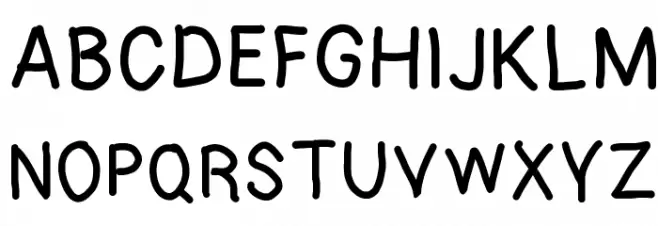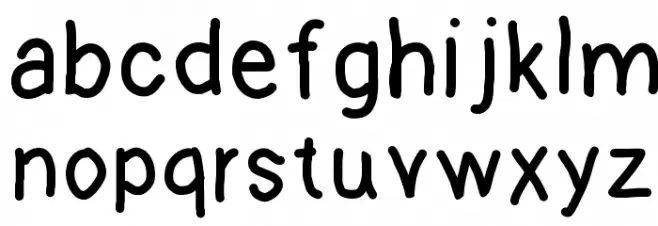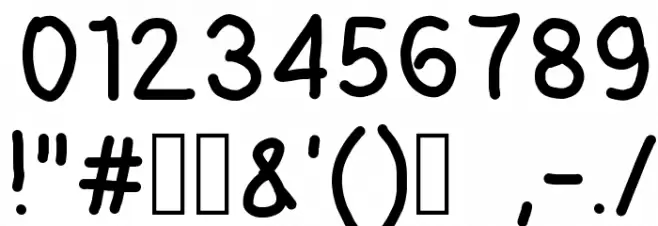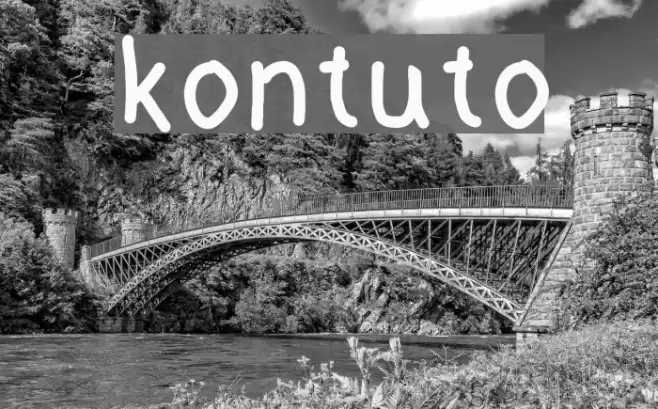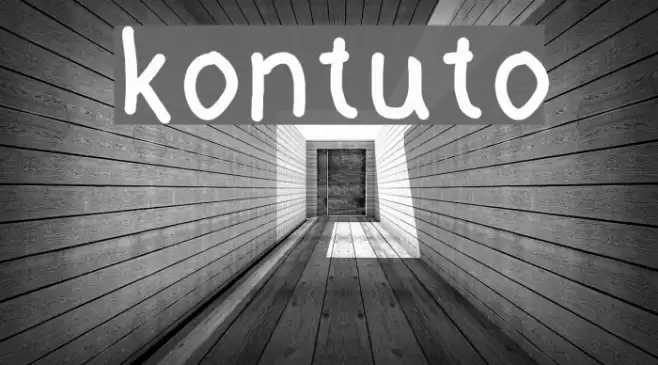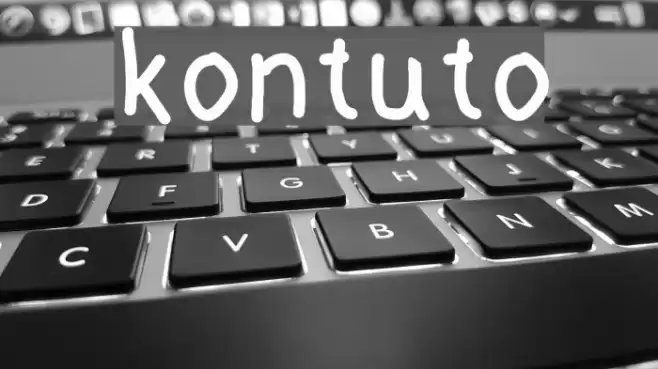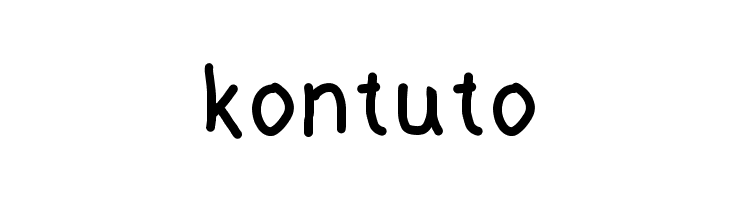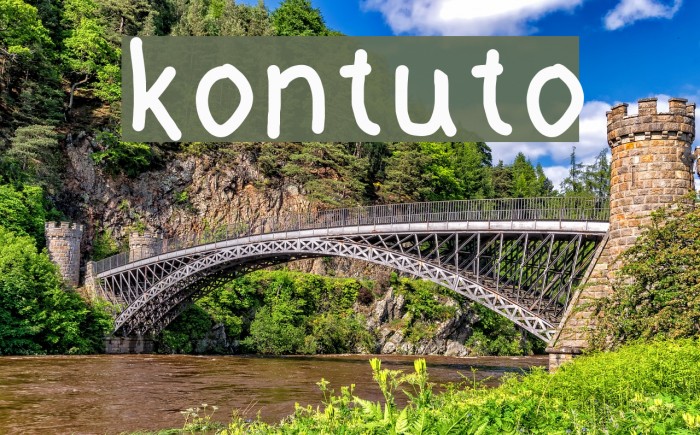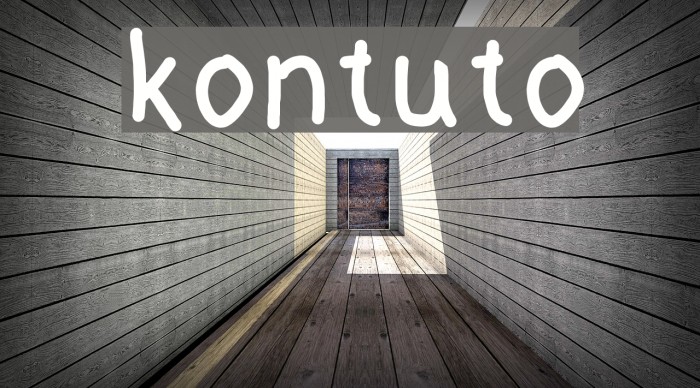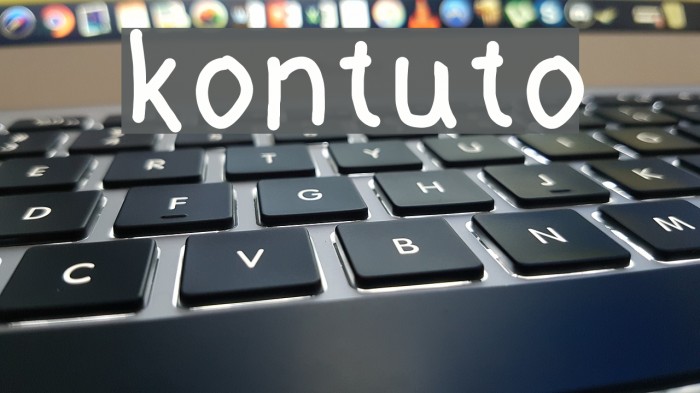
kontuto
This font features a playful and informal handwritten style, characterized by its rounded and slightly irregular letterforms. The strokes are consistent in thickness, giving it a uniform appearance while maintaining a casual feel. The uppercase and lowercase letters are well-balanced, with a slight slant that adds to its dynamic look. The numerals and special characters are designed to match the overall style, ensuring cohesiveness across all glyphs. This font is ideal for projects that require a friendly and approachable aesthetic, such as children's books, casual invitations, or personal blogs.
A playful, handwritten font with rounded, consistent strokes and a casual feel.
- Proposed Projects: Ideal for children's books, casual invitations, personal blogs, and playful branding.
- Overall Style: Casual
- Use Case: Headlines, Informal text, Branding